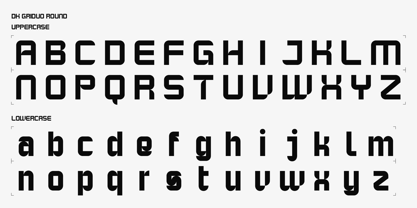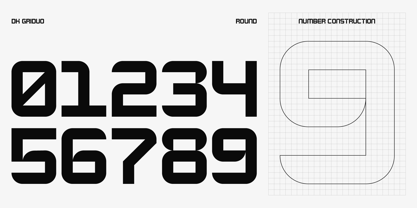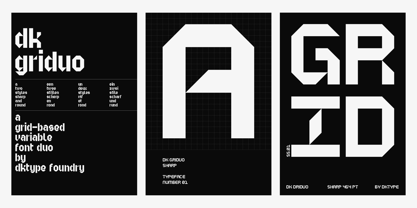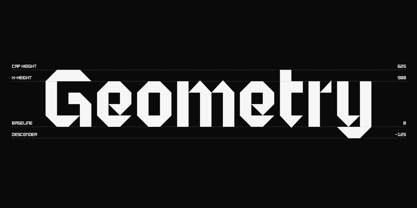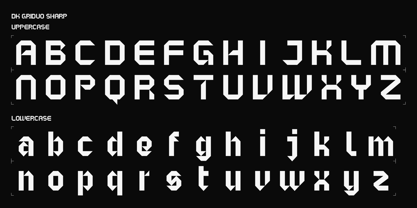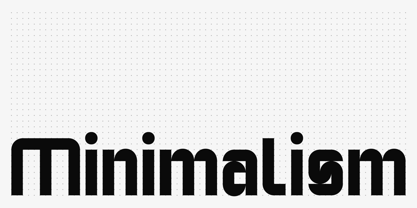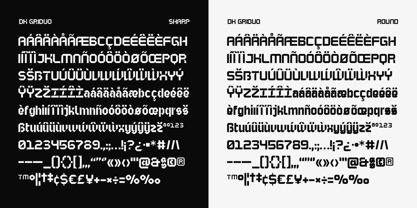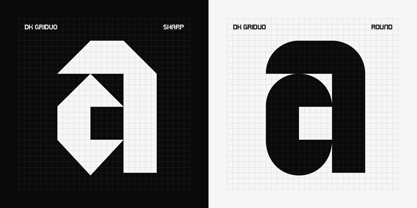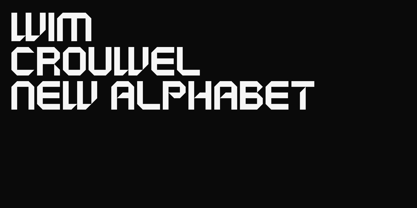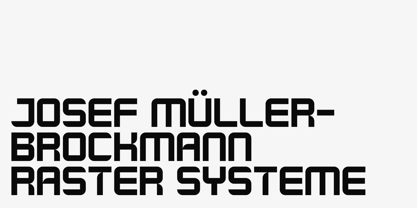
DK Griduo
por DKType Foundry
La familia tipográfica DK Griduo fue diseñada por Darman Kadir y publicada por DKType Foundry. DK Griduo contiene 3 estilos y opciones de paquete familiar. Más información sobre esta familia
DK Griduo is a rigorous display font system inspired by the pure logic of modernist grid design and systematic typography. Built on a strict mathematical matrix, this variable duo transitions seamlessly between sharp technical geometry and clean rounded forms. By neutralizing decorative excess, the typeface behaves as a structured framework where form strictly complies with geometric parameters. It offers contemporary designers a precise tool for high-impact layouts, engineered to command visual space through absolute discipline and computational order.
Diseñadores: Darman Kadir
Fundición: DKType Foundry